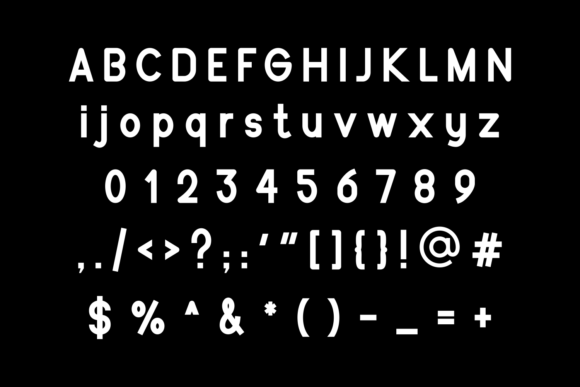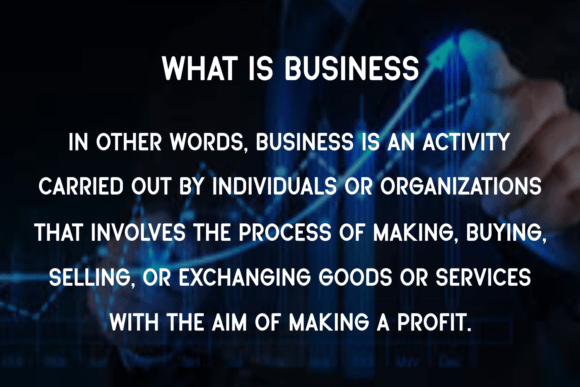
Have you ever stared at a blank page, trying to find the right words to bring your vision to life? We’ve all been there – searching for the perfect font to give our creations that extra oomph. It’s a moment of pure creative frustration, but also a chance to discover something truly special. That’s exactly what happened when designers stumbled upon the Grosbo Font.
This cool and unique sans serif font has the power to elevate any project, regardless of the topic. Whether you’re designing a logo, creating a brochure, or building a website, the Grosbo Font is an incredible asset to your fonts’ library. Its versatility and style make it a valuable addition to any designer’s toolkit, helping to bring their ideas to life in a way that’s both visually appealing and engaging.
Grosbo Font Key Features
- Size: The font family includes various weights, from Light to ExtraBold, catering to different design needs.
- Unique Characteristics: Grosbo Font features a unique blend of modern and vintage elements, with intricate details and subtle texture, making it perfect for creative and artistic projects.
- Font Pairing: Grosbo Font can be paired with a variety of fonts to create unique and visually appealing combinations, making it a versatile choice for designers and artists.
Grosbo Font Review
Overall, I’d say Grosbo Font is a solid addition to any designer’s toolkit. Here’s what I like about it:
- ✨ Unique aesthetic: Grosbo Font has a distinctive look that sets it apart from other sans-serif fonts. Its rounded edges and gentle curves give it a friendly, approachable feel.
- ✨ High legibility: The font is highly legible, making it perfect for body text and large blocks of content.
- ✨ Versatile: Grosbo Font works well in a variety of contexts, from digital products to print materials.
Overall, I think Grosbo Font is a great choice for designers who want a unique, highly legible font that works well in a variety of contexts. While it may have some limitations, its strengths outweigh its weaknesses in my opinion.
Tips for Getting the Most Out of Grosbo Font
1. Use the Grosbo Font for titles and headings to add a touch of elegance to your design.
2. Experiment with different font sizes and styles to create visual interest.
3. Pair the Grosbo Font with other elegant fonts to create a cohesive look.
The Grosbo Font is perfect for:
2. Luxury branding and marketing materials.
3. High-end product packaging and labels.
Alternatives to Grosbo Font
Montserrat is a popular sans-serif font designed by Julieta Ulanovsky. It’s a great alternative to Grosbo Font when you need a clean, modern, and highly legible font for digital applications. Montserrat is more condensed than Grosbo Font, making it ideal for body text and headlines in tight spaces.
Open Sans is a modern sans-serif font designed by Steve Matteson. It’s a great alternative to Grosbo Font when you need a font that’s highly legible and works well in a variety of contexts. Open Sans is more rounded than Grosbo Font, making it ideal for body text and headlines in longer blocks of text.
Lato is a sans-serif font designed by Łukasz Dziedzic. It’s a great alternative to Grosbo Font when you need a font that’s highly legible and works well in a variety of contexts. Lato is more elegant than Grosbo Font, making it ideal for headlines and body text in longer blocks of text.